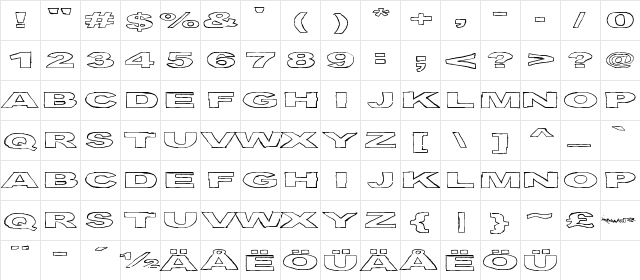
Birds Requiem Regular
Design Context for Birds Requiem Typeface
Birds Requiem offers clean, dependable letterforms without strong stylistic allegiance, making it a practical choice for designers who need flexibility.
Pro Tip: Use Birds Requiem in both headline and body roles to test its range before committing to a single application.